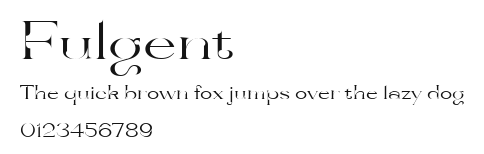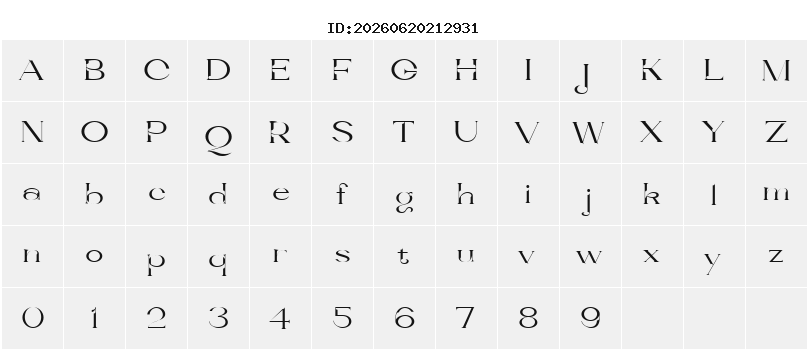
Fulgent Preview
• Font Name: Fulgent
• Designer: TSAI,YI-DA
About Fulgent.ttf
Fulgent.ttf is a modern, elegant sans-serif font designed for ultimate readability and visual harmony. Perfect for branding, headlines, web design, and print materials.